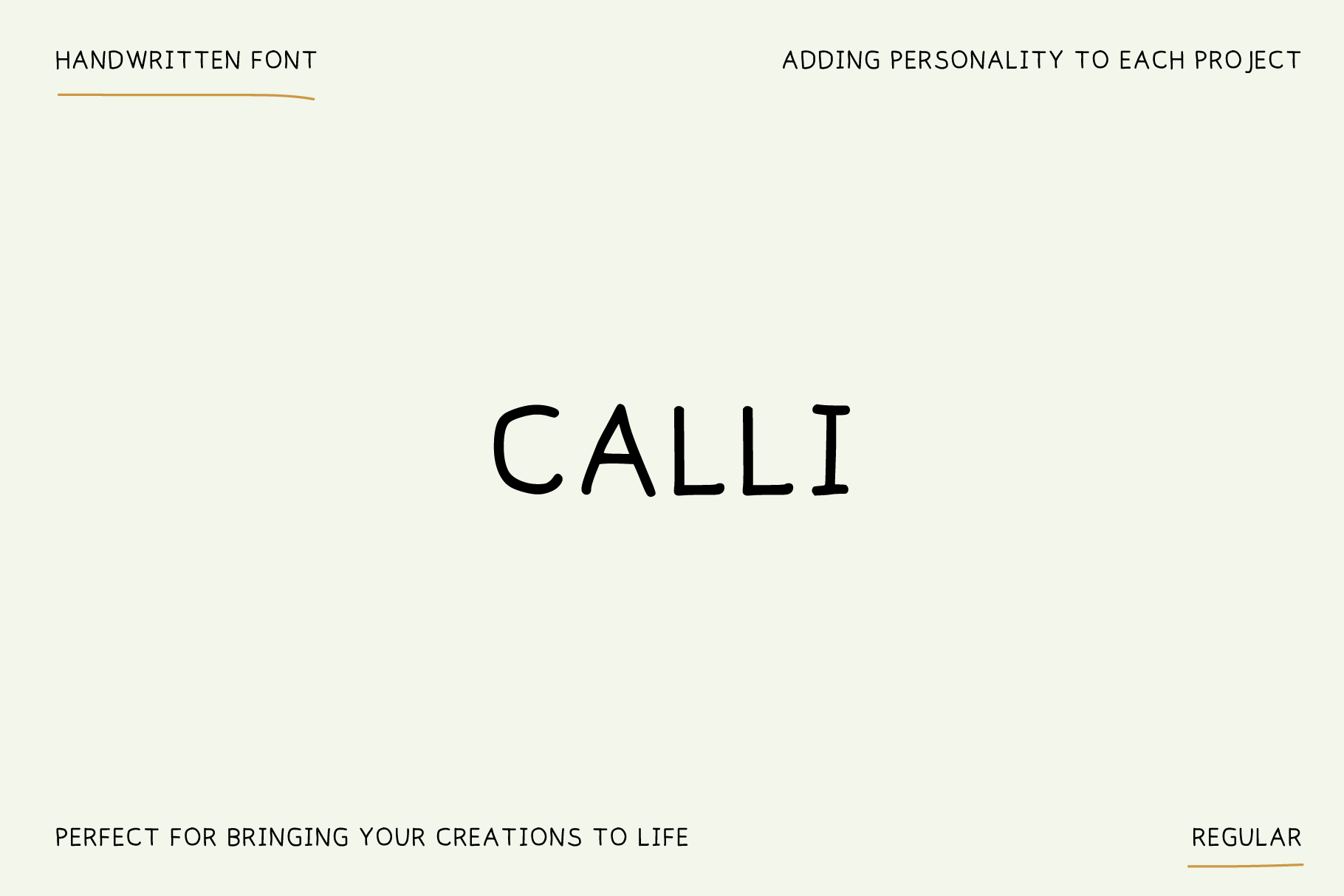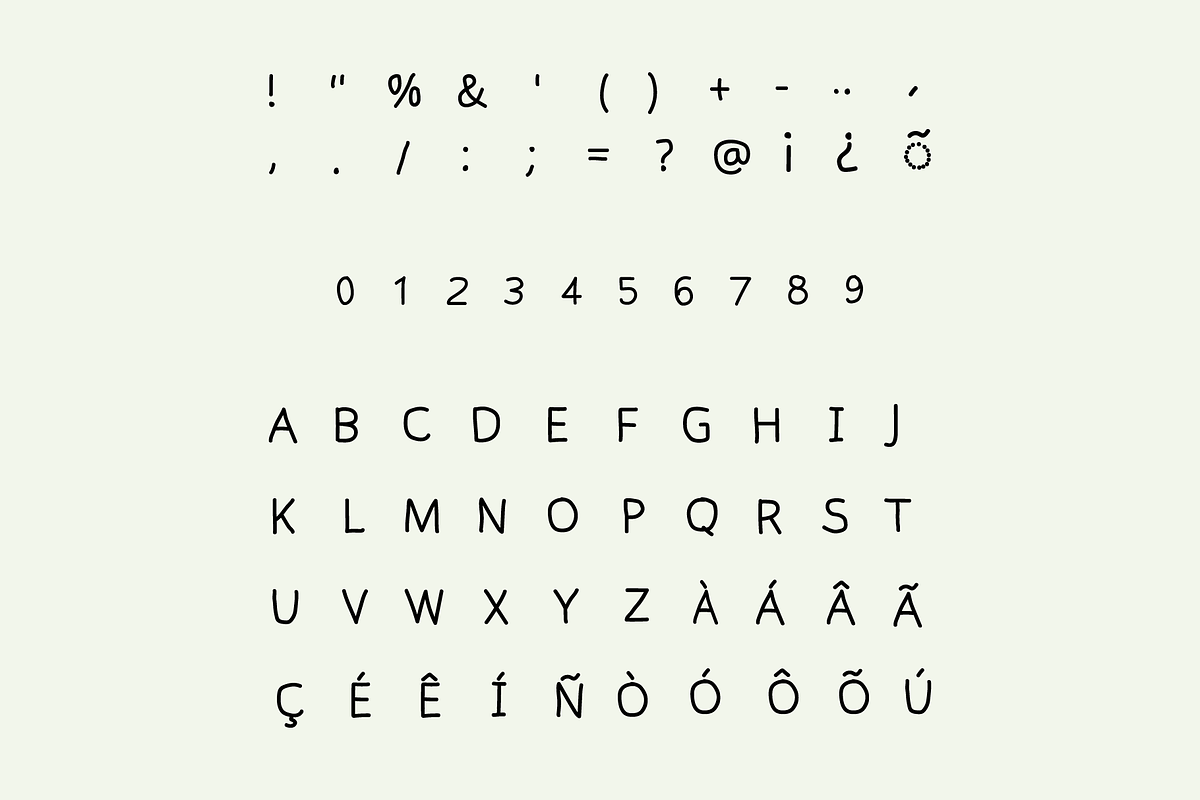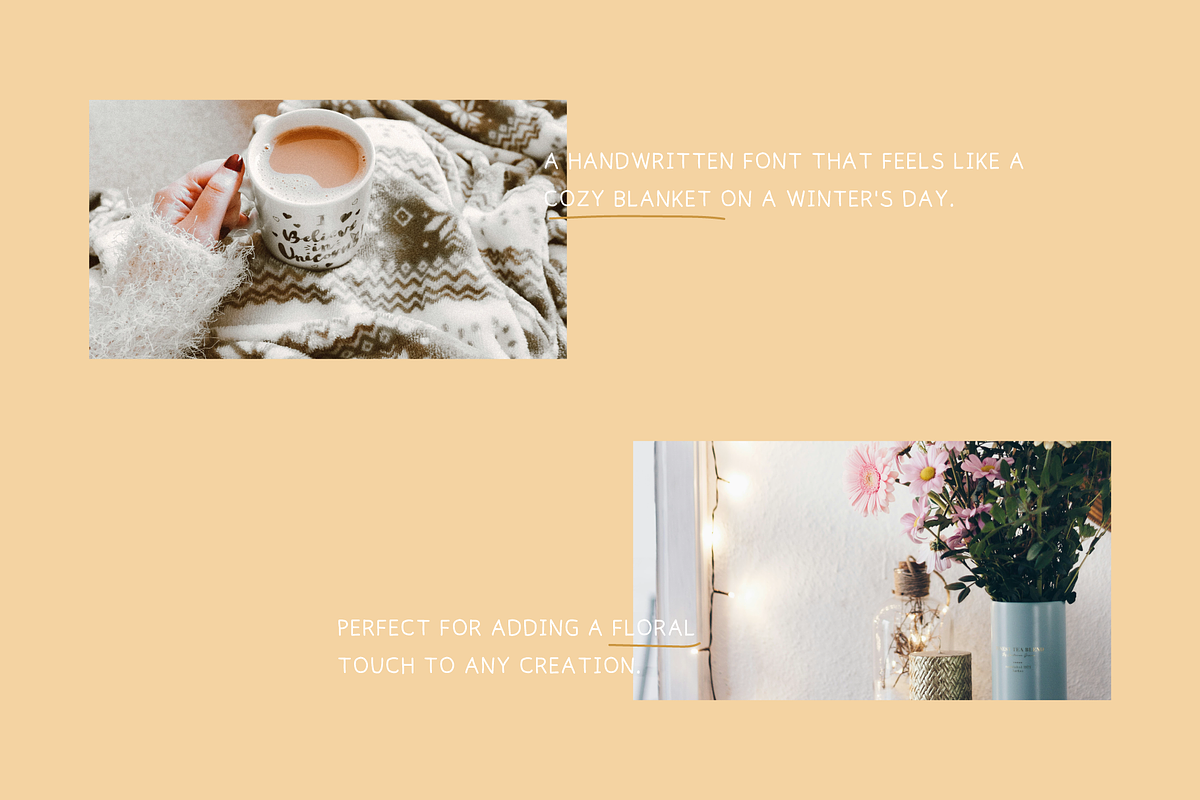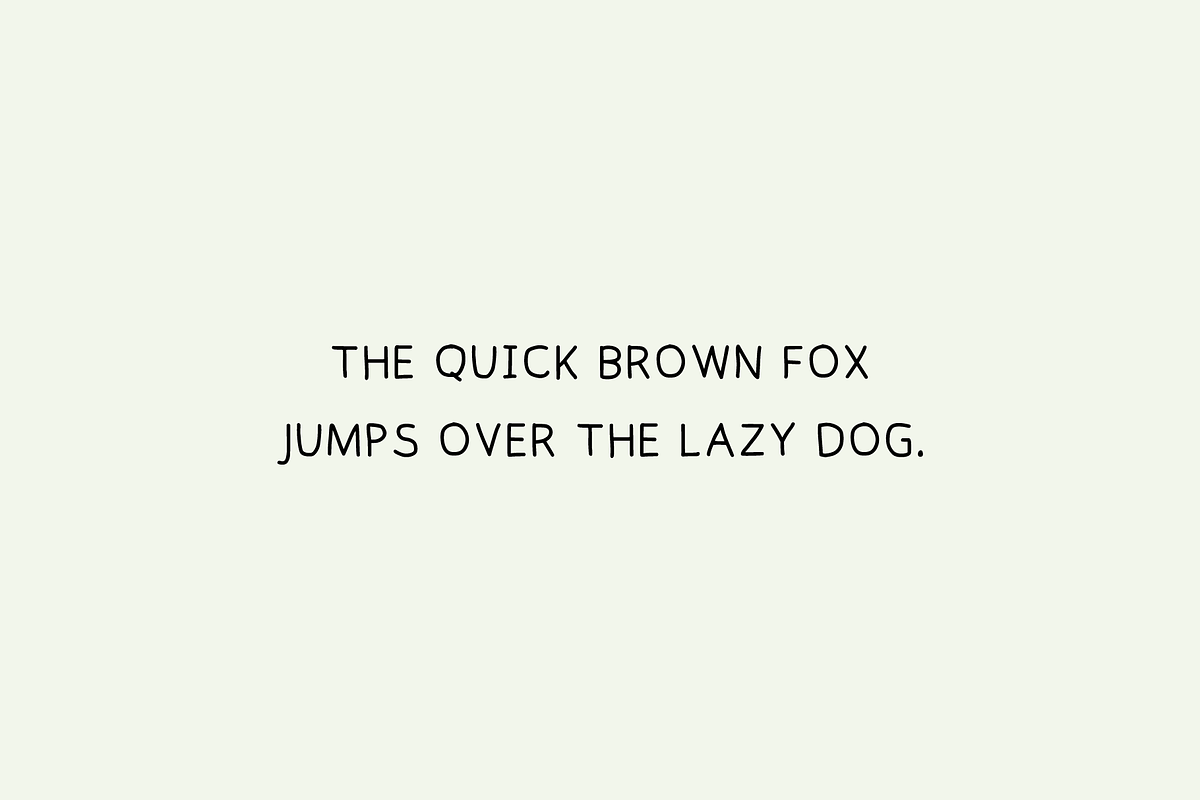
Calli handwritten font
Calli is a handwritten font that captures the essence of handwriting with a touch of modern elegance.
Inspired by the fluidity and texture of traditional calligraphy, Calli is perfect for bringing to life projects that require a personal and authentic touch. With its soft curves and organic strokes, this font has a handcrafted feel, ideal for any design that needs to convey warmth and personality.
Whether for a warm message or a stylish signature, Calli offers charming versatility that suits a variety of occasions.